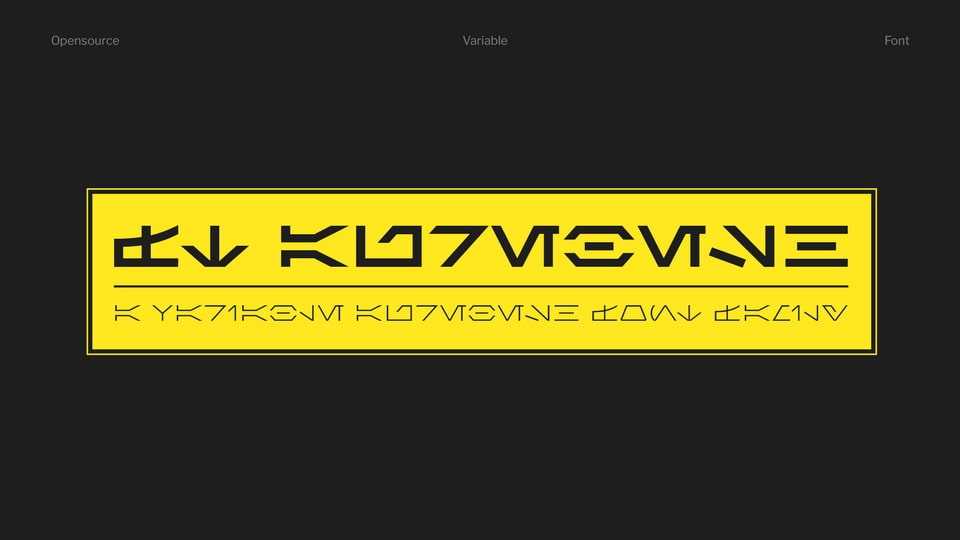
Download FT Aurebesh font, a new libre variable font family to celebrate the Aurebesh script used in the Star Wars universe!
Designer: Rodrigo Fuenzalida